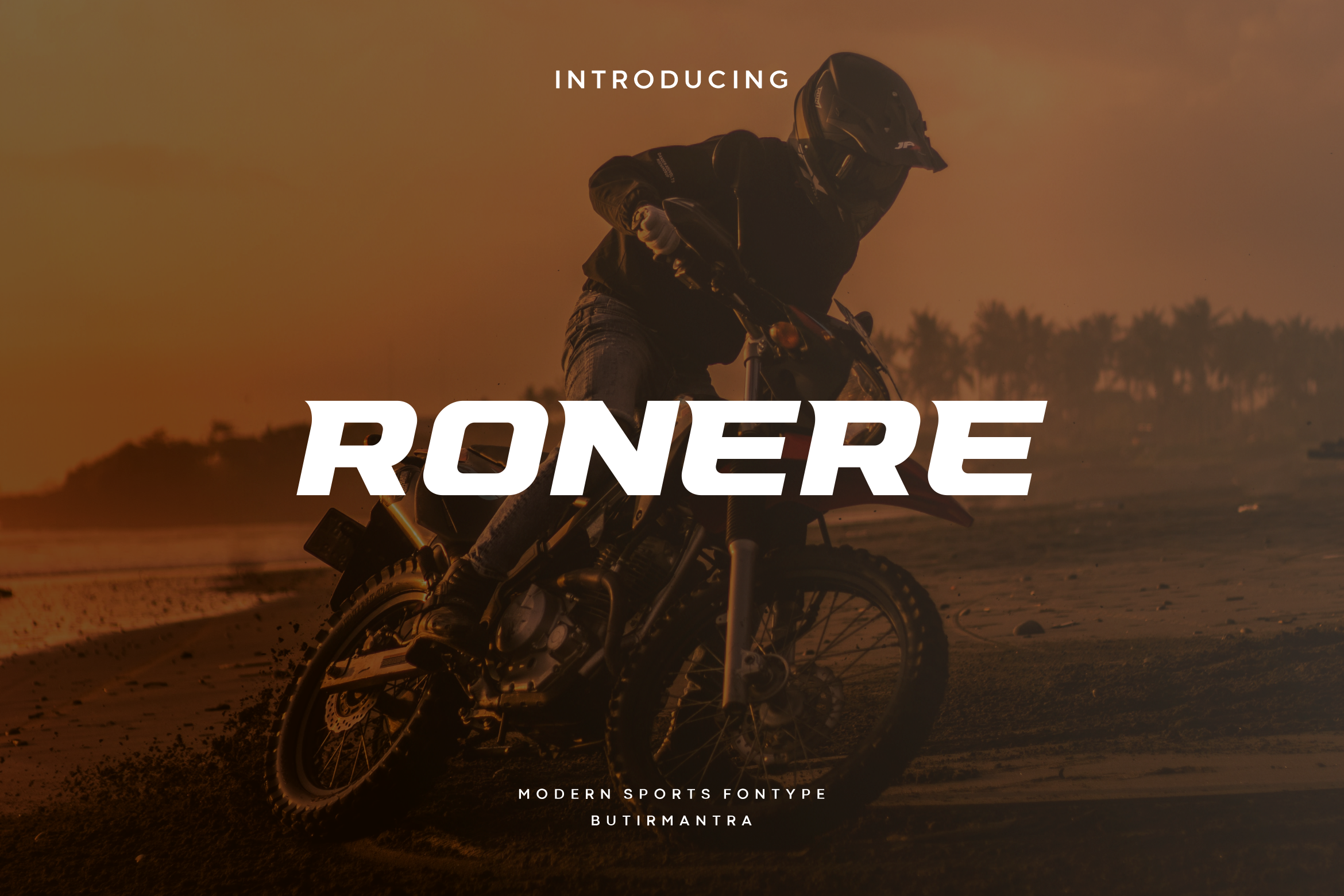
Ronere - Modern Sports Typeface
Ronere an awesome sports font with wide italic fonts, modern cutouts, and dynamic slant. Ideal for fast car racing sports titles, running matches, cycling, automotive game logos and monograms or other modern dynamic text. Ronere compare favorably with legibility and size, creating the effect of power and speed. Designed as a fast and dynamic font, but with a slightly different font design, check it out and grab it right away.